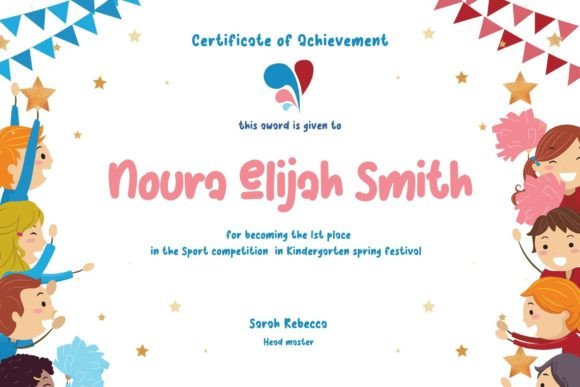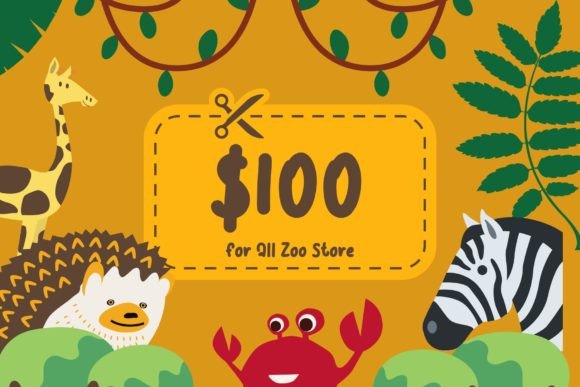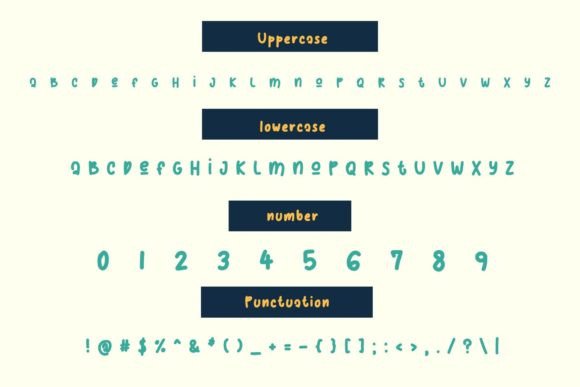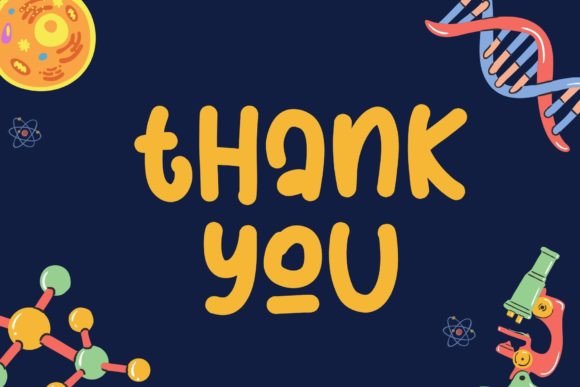
Introducing Electron Font: The Playful and Authentic Choice for Your Designs
Are you looking for a font that can add a touch of playfulness and authenticity to your designs? Look no further than Electron Font, a cute handwritten font that is perfect for a wide range of projects. From blog posts and logos to branding, ads, invitations, greeting cards, planners, photo albums, decorations, and more, Electron Font is the ideal choice for designers and crafters who want to add a personal touch to their work.
What Makes Electron Font Special?
Electron Font is a unique and charming font that stands out from the crowd. Its handwritten style gives it a personal and authentic feel that is sure to capture the attention of your audience. The font’s playful and carefree nature makes it perfect for projects that require a lighthearted and whimsical touch. Whether you’re designing a logo, creating a social media post, or crafting a greeting card, Electron Font is sure to bring a smile to your face and add a touch of personality to your work.
Uses for Electron Font
Electron Font is incredibly versatile and can be used for a wide range of projects, including:
- Blog Posts: Add a personal touch to your blog posts with Electron Font. Its playful style is perfect for lifestyle, fashion, and food blogs.
- Logos and Branding: Create a unique and memorable logo for your business with Electron Font. Its authentic style will help you stand out from the competition.
- Ads: Make your ads more engaging and eye-catching with Electron Font. Its playful style is sure to grab the attention of your target audience.
- Invitations and Greeting Cards: Add a personal touch to your invitations and greeting cards with Electron Font. Its whimsical style is perfect for special occasions.
- Planners and Photo Albums: Create beautiful and functional planners and photo albums with Electron Font. Its playful style will make your projects more enjoyable and engaging.
- Decorations: Use Electron Font to create beautiful and unique decorations for your home or office.
Why Choose Electron Font?
There are many reasons why Electron Font is the perfect choice for your designs. Here are just a few:
- Unique and Authentic Style: Electron Font has a unique and authentic style that will set your designs apart from the crowd.
- Playful and Whimsical: Electron Font is playful and whimsical, making it perfect for projects that require a lighthearted touch.
- Easy to Read: Electron Font is easy to read, making it perfect for body text and headlines.
- Versatile: Electron Font is incredibly versatile and can be used for a wide range of projects.
Here are a few tips and tricks to help you get the most out of Electron Font:
- Experiment with Different Sizes: Electron Font looks great in a variety of sizes. Experiment with different sizes to find the perfect look for your project.
- Pair with Other Fonts: Electron Font pairs well with other fonts. Try pairing it with a bold font for a striking contrast.
- Use for Headlines and Body Text: Electron Font is perfect for both headlines and body text. Use it to create a cohesive look for your project.
Electron Font is a unique and charming font that is perfect for designers and crafters who want to add a personal touch to their work. Its playful and authentic style makes it ideal for a wide range of projects, from blog posts and logos to branding, ads, invitations, greeting cards, planners, photo albums, decorations, and more. With its ease of use and versatility, Electron Font is sure to become a favorite in your design arsenal.